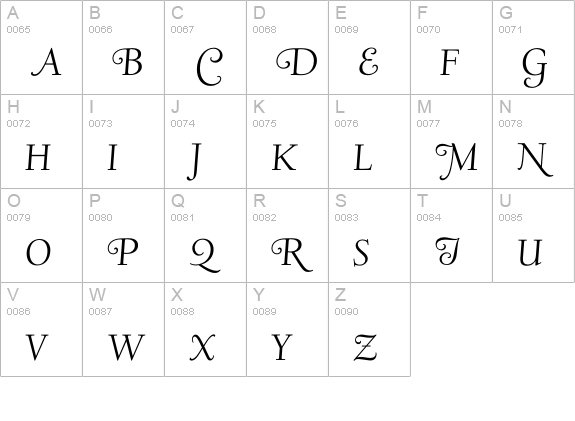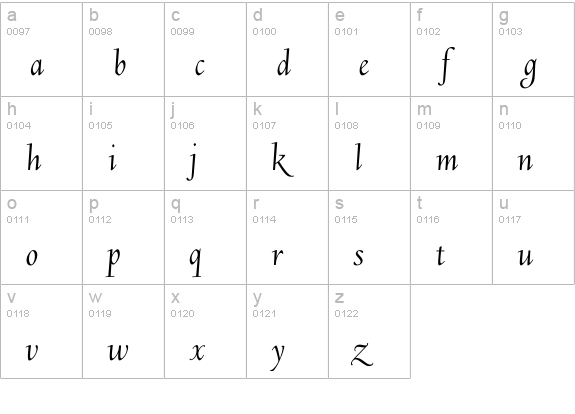
DeepdeneHWAlt-Italic Font Details
DeepdeneHWAlt-Italic is a distinctive, italic variant in the DeepdeneHWAlt typeface family \xE2\x80\x94 well suited to design and typography projects.
DeepdeneHWAlt-Italic is a stylish and elegant font that exudes sophistication and modernity. Its sleek italicized design adds a touch of flair to any project, making it perfect for use in branding, advertising, and editorial designs. The unique letterforms and subtle curves of DeepdeneHWAlt-Italic create a visually appealing and professional look that is sure to impress. This versatile font is ideal for a wide range of design applications, from logos and headlines to body text and invitations. Its strong presence and legibility make it a reliable choice for both print and digital projects. With its clean lines and contemporary feel, DeepdeneHWAlt-Italic will elevate any design and give it a polished finish. Best of all, DeepdeneHWAlt-Italic is available for free download at FontsMarket.com. This means that you can easily access this high-quality font and use it in your projects without any cost. Don't miss out on the opportunity to enhance your designs with the sophisticated charm of DeepdeneHWAlt-Italic – download it now and see the difference it can make!